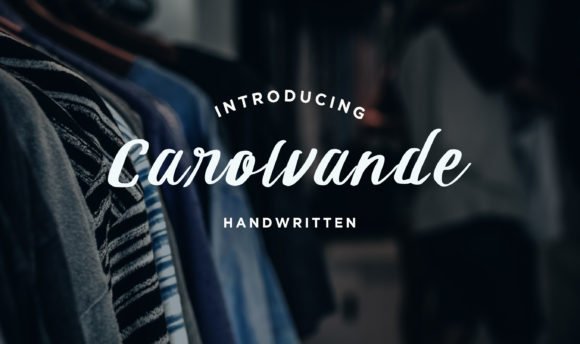
Discover the Magic of Handwritten Typography
Have you ever found yourself doodling in a notebook, trying to capture the perfect mix of elegance and whimsy in your handwriting? That’s exactly the moment when creativity strikes, and the possibilities seem endless. For designers, this spark of inspiration can lead to incredible breakthroughs in their work.
Enter the Carolvande Font, a modern, unique handwritten font that’s perfect for product branding, fashion, and logos. This versatile font is designed to capture the essence of handmade typography, adding a touch of personality to any design project. Whether you’re a seasoned pro or just starting out, the Carolvande Font is a valuable tool in your creative arsenal, offering endless possibilities for expression and innovation.
Carolvande Font Key Features
- Unique Characteristics: The Carolvande font features a unique blend of traditional and modern elements, with intricate details and ornate flourishes.
Carolvande Font Review
I recently had the chance to work with the Carolvande font, and I must say it’s a unique and intriguing choice. Here are my thoughts on what works well and what doesn’t.
- Carolvande has a distinctive, elegant feel to it, making it perfect for luxury or high-end branding projects.
- The font is highly versatile and can be used in a variety of contexts, from titles and headings to body text.
- The connected script style of the font adds a touch of sophistication and elegance to any design.
- The font can be quite difficult to read in certain sizes, especially at smaller point sizes.
- The connected script style can make it challenging to use the font for lengthy blocks of text.
- The font may not be the best choice for projects that require a more modern or edgy look.
Overall, I would say that Carolvande is a solid choice for designers looking to add a touch of elegance and sophistication to their projects. However, it’s not a one-size-fits-all solution, and designers should carefully consider the limitations of the font before making a final decision.
Carolvande Font: A Practical Application Guide
Getting the Most Out of Carolvande Font
To get the most out of Carolvande Font, experiment with different font sizes, styles, and colors to achieve the desired look. Combine the font with other design elements, such as graphics and images, to create visually appealing designs. Use the font to create a cohesive brand identity or to add a touch of elegance to your designs.
Carolvande Font is commonly used for: wedding invitations, party decorations, holiday cards, typography-based art, gift tags, menus, professional presentations, reports, and documents, such as resumes, business proposals, and newsletters.
Alternatives to Carolvande Font
Playfair Display is an elegant and luxurious script font ideal for titles, headings, and other text that requires a touch of sophistication. It features intricate details and connections between letters, making it perfect for high-end branding and luxury goods.
Compared to Carolvande Font, Playfair Display is more ornate and luxurious, while Carolvande Font has a more modern and clean feel. Playfair Display is suitable for projects that require a classic and elegant look, whereas Carolvande Font is better suited for modern and contemporary designs.